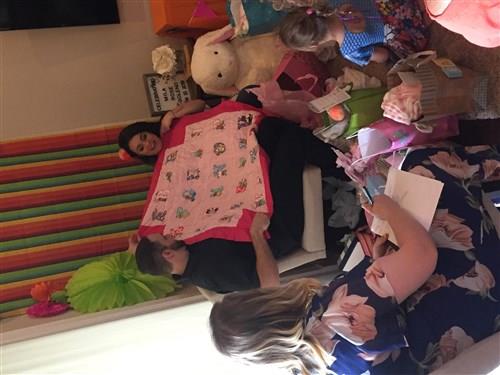
Embroidery Patterns is happy to present Teddy Alphabet machine embroidery font which has Playful decorative machine embroidery font for children's projects, featuring teddy bears interacting with colorful letters. Ideal for holiday-themed items like banners and festive decorations. Available in PES, DST, and 11 other formats. included. If you would like to view more embroidery fonts and alphabets please search our embroidery fonts page.